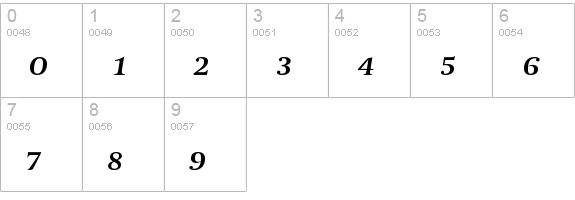
DTLParadoxTCaps-MediumItalic Font Details
The DTLParadoxTCaps-MediumItalic font is a stylish and versatile typeface that combines modern aesthetics with a touch of sophistication. Its medium weight and italic style make it perfect for adding a touch of elegance to any design project. The unique design elements of this font create a sense of paradoxical beauty that is sure to catch the eye of your audience. What's even better is that this font is available for free download at FontsMarket.com. Whether you're working on a branding project, creating a stunning poster, or designing a captivating website, the DTLParadoxTCaps-MediumItalic font is a versatile choice that will elevate your work to the next level. Download this font today and add a touch of elegance to your designs!